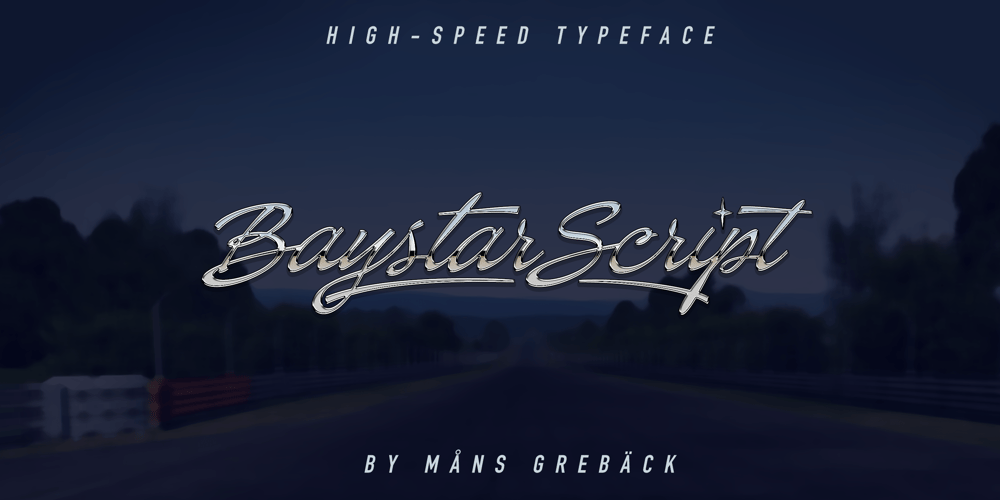
Baystar Script Font Family was designed by Måns Grebäck and published by Mans Greback. Baystar Script contains 3 styles and family package options. Baystar Script is a high-quality script typeface. Drawn and created by Mans Greback in 2021, this calligraphic font has power, style and stamina. The type’s organic, handwritten lettering is well suited for a variety of applications: from happy, playful designs, to super sleek web graphics and vivid logotypes. It has velocity like a mustang, a brilliant look and–with its hundreds of alternates–is truly dynamic. It flows with quick turns, marking out brush strokes and connecting tails, like a genuine, hand-painted writing should. Write multiple underscores to make swashes of different lengths.Example: Corvette_______Baystar Script is legible and professional while retaining the personality that is valued in handwriting. Drawn in accordance with the latest trends in design, but is inspired by retro logotype lettering such as Chevrolet Chevelle and Camaro. A modern calligraphy, fast as a sport race car or sharp as a stingray, the letters are characterized by thorny edges and tall ascenders. It comes in three weights; Light, Medium and Bold, making it useful in any size and context. The font is built with advanced OpenType auto-functionality and guaranteed top-notch quality, containing stylistic and contextual alternates, ligatures and more automatic and manual features; all to give you full control and customizability. It has extensive lingual support, covering all Latin-based languages, from North Europa to South Africa, from America to South-East Asia, as well as Cyrillic (Russian, Serbian, Bulgarian) and the Greek alphabet.It contains all characters and symbols you’ll ever need, including all punctuation and numbers. Let this font help you to transform your professional work into an energetic piece of handmade art!